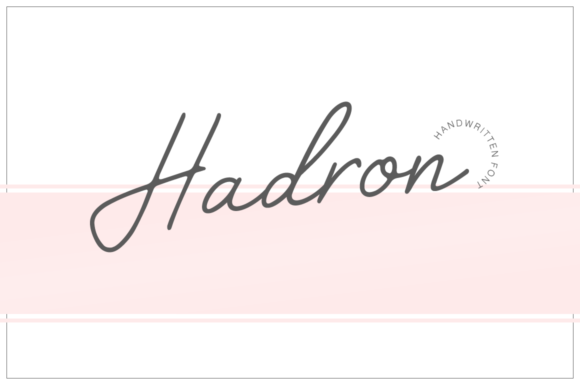
Hadron Font
Dive into the enchanting world of Hadron, a captivating script font that will leave an indelible mark on your creative journey. Crafted with meticulous care by Pasha Larin, this font possesses a timeless charm that seamlessly blends modern elegance with a touch of classic sophistication. Its graceful curves and flowing lines evoke a sense of artistry that will captivate your audience and leave them in awe.
Hadron is the perfect font for those seeking a touch of uniqueness and individuality in their designs. It effortlessly elevates your projects to new heights, whether you are creating stunning wedding invitations, captivating blog posts, eye-catching logos, or simply adding a dash of beauty to your home décor. Its versatility knows no bounds, making it a versatile tool for designers, artists, and creative professionals alike.
With Hadron, you can unleash your creativity and bring your most ambitious visions to life. Its elegant script style adds a touch of sophistication to any project, while its handwritten charm creates a sense of intimacy and warmth that resonates with your audience. Whether you are designing a heartfelt message, crafting a unique logo, or adding a personal touch to your online presence, Hadron is your perfect companion.
So, let Hadron take you on an artistic journey like no other. Embrace its timeless elegance, revel in its versatility, and experience the magic as your creative endeavors take center stage. Don't just settle for ordinary fonts; embrace the extraordinary with Hadron and let your creativity shine brighter than ever before.